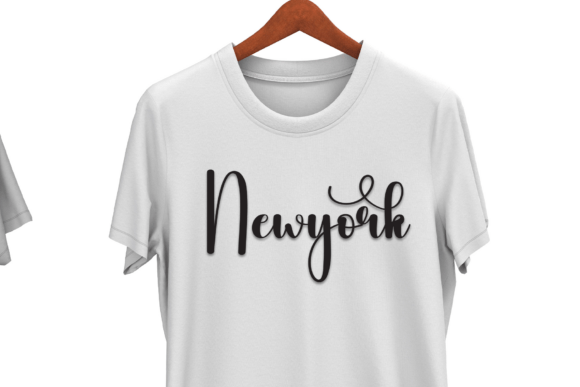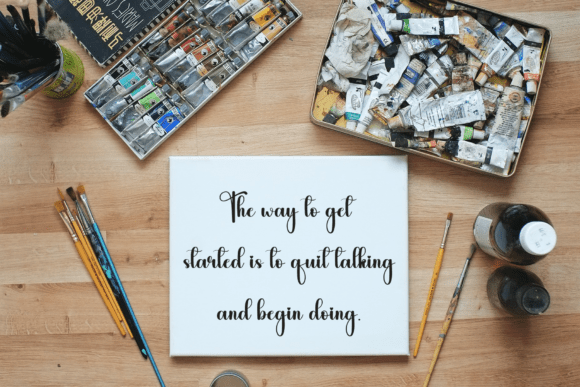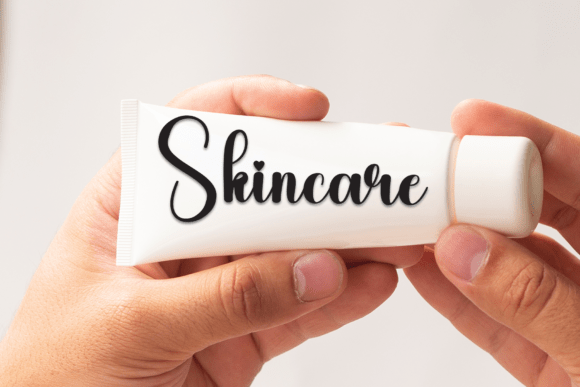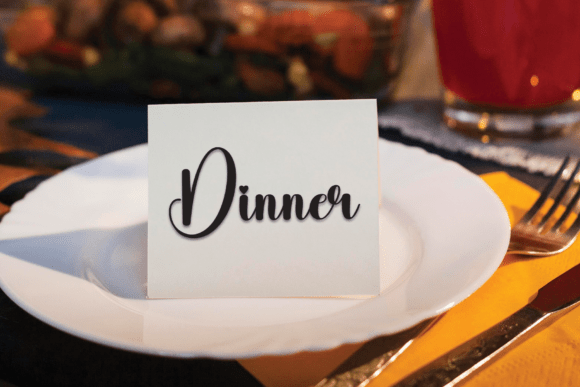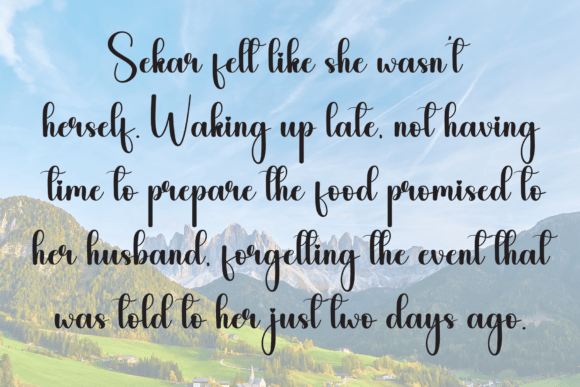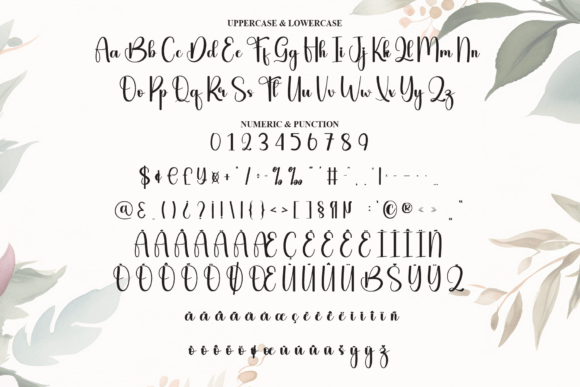
Who among us hasn’t felt that rush of excitement when brainstorming a new creative project? The blank canvas stares back, begging for inspiration. It’s in these moments that we yearn for that special something – a dash of personality, a pinch of charm – to elevate our work from ordinary to extraordinary.
Enter Creative Samantha Font, a delightful handwritten display font that embodies the essence of warmth and friendliness. Crafted to add a touch of whimsy to your designs, it’s the perfect companion for wedding invitations, greeting cards, and any project that requires a dash of joy. For designers, Creative Samantha Font is a valuable asset, offering a unique way to breathe life into even the most mundane concepts.
Whether you’re a seasoned pro or a creative newbie, this font is sure to spark inspiration and add a personal touch to your work.
Creative Samantha Font Key Features
- Font Family: Creative Samantha
- Unique Characteristics: Hand-drawn design, elegant and feminine feel, perfect for creative projects, invitations, and wedding designs
- Language Support: Supports a wide range of languages, including Latin, Cyrillic, and Greek
Designer Review: Creative Samantha Font
Overall, I’m quite impressed with the Creative Samantha Font, but as with any font, it has its strengths and weaknesses. Let’s dive in.
- The font’s elegant, handwritten feel is perfect for crafting unique headlines and titles.
- The font’s high x-height makes it easy to read, even at smaller font sizes.
- The numerous font weights and styles provide a lot of flexibility for designers.
- The font’s script-like quality adds a touch of sophistication to any design.
- The font may be too ornate for some designs, potentially overwhelming the content.
- The font’s complexity might make it difficult to use in certain contexts, such as body text or digital interfaces.
- The font’s script-like quality can be distracting in certain situations, like when used for large blocks of text.
Overall, the Creative Samantha Font is a beautiful and versatile font that can add a unique touch to any design. However, it’s essential to use it judiciously, considering the context and content of your project.
To get the most out of Creative Samantha Font, try the following:
- Use it for headings and titles to add a touch of elegance.
- Pair it with a bold font for a striking contrast.
Creative Samantha Font is perfect for:
- Editorial and publishing projects.
Oswald is a sans-serif font that is known for its clean and modern look. It is a great choice for designs that require a lot of text, such as blog posts, articles, and websites. Oswald has a more geometric look compared to Creative Samantha Font, which has a more handwritten feel. Use Oswald when you need a font that is easy to read and has a professional look.
Great Vibes is a script font that has a playful and elegant feel. It is a great choice for designs that require a lot of creativity, such as wedding invitations, menus, and posters. Great Vibes has a more fluid and cursive look compared to Creative Samantha Font, which has a more bold and playful feel. Use Great Vibes when you need a font that is elegant and sophisticated.
Lato is a sans-serif font that is known for its clean and modern look. It is a great choice for designs that require a lot of text, such as blog posts, articles, and websites. Lato has a more minimalist look compared to Creative Samantha Font, which has a more bold and playful feel. Use Lato when you need a font that is easy to read and has a clean look.
Abril Fatface Font
Abril Fatface is a script font that has a elegant and sophisticated feel. It is a great choice for designs that require a lot of creativity, such as wedding invitations, menus, and posters. Abril Fatface has a more ornate and cursive look compared to Creative Samantha Font, which has a more bold and playful feel. Use Abril Fatface when you need a font that is elegant and sophisticated.